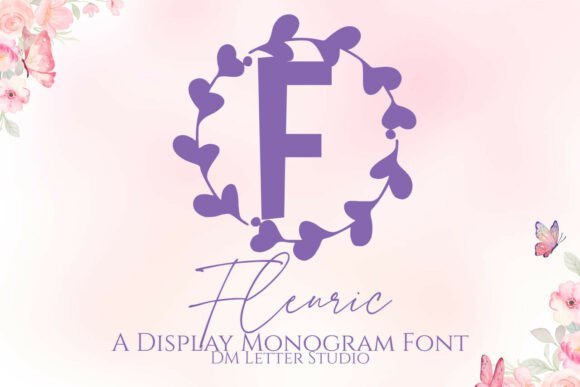
Introduction to Fleuric Monogram Font
Meet Fleuric, the Monogram Font Fleuric Monogram Font turns initials into graceful botanical marks.
Stems and curves feel poised Spacing stays open, so tiny tags still read clearly.